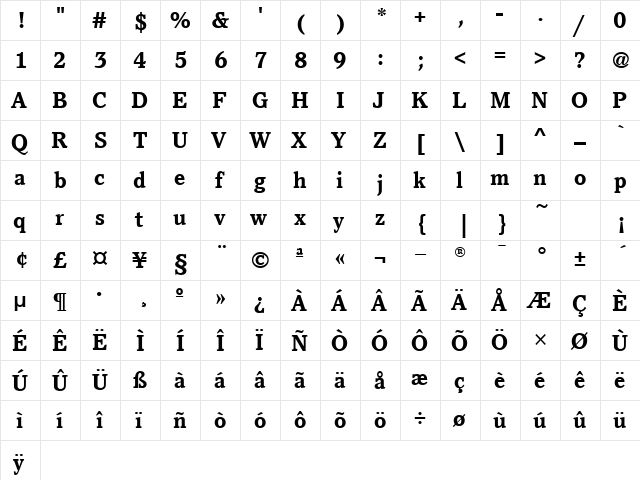
PacellaITCTT Bold
| Foundry | International Typeface Corporation |
| Designer | Vincent Pacella |
Design Context for PacellaITCTT Typeface
PacellaITCTT takes a measured approach to typography — its balanced proportions and neutral character make it a reliable workhorse for both digital and print work. The heavy weight commands attention and anchors typographic hierarchies.